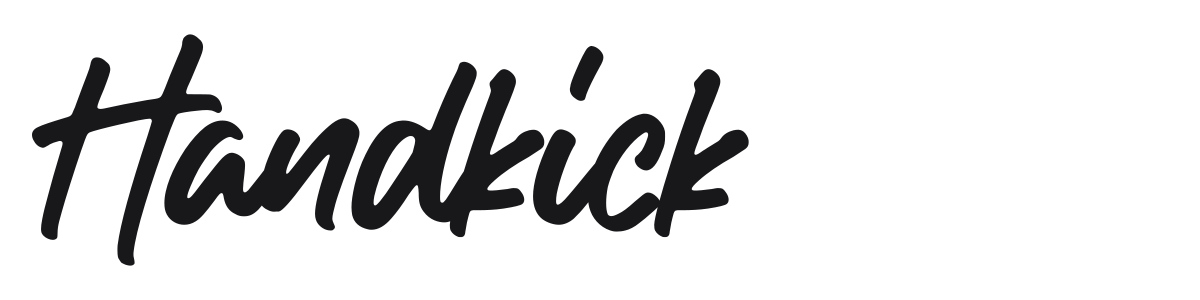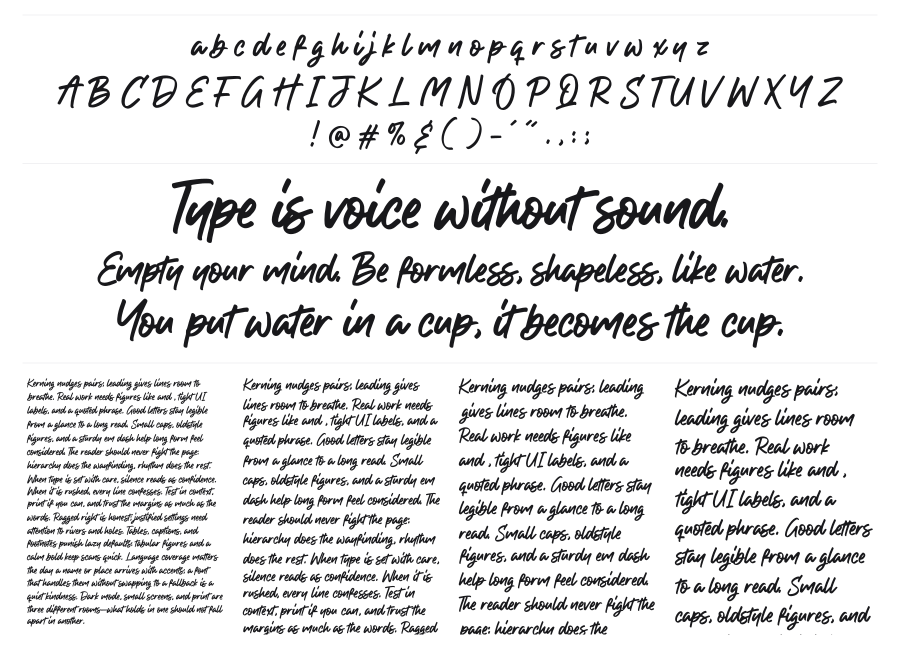
Handkick
Handkick is a bold casual brush script with the loose, ink-drenched energy of hand-lettered signage. Thick downstrokes and thin hairline connections create natural stroke contrast that gives each word a dynamic, in-motion feel. It works well at large sizes for logos, packaging, and social media graphics.